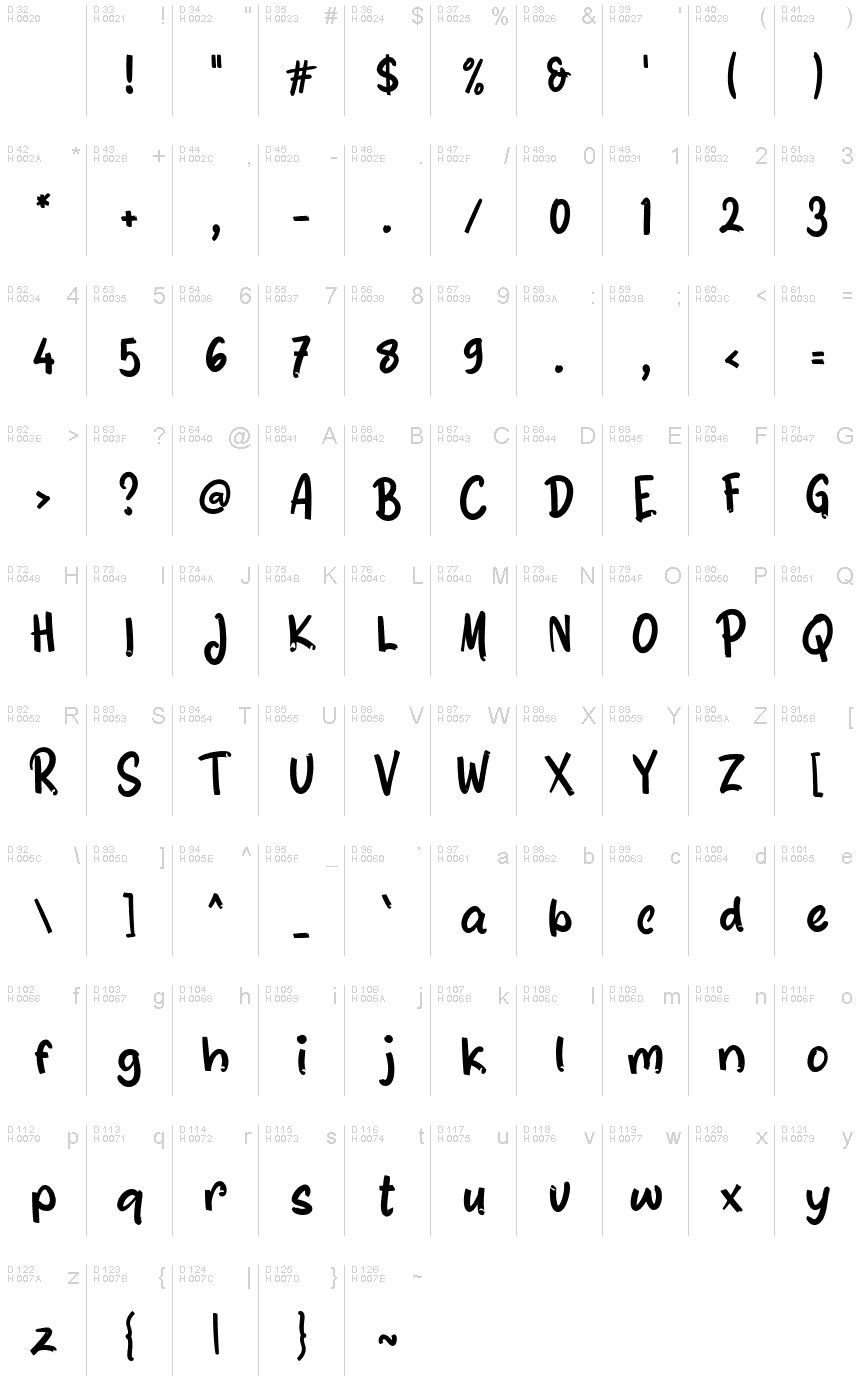
Es Blewah
Es Blewah, created by the talented designer wep, is a captivating and smooth brush font that exudes creativity and elegance. With its fluid strokes and graceful curves, this typeface adds a touch of sophistication to any project. Its versatility makes it suitable for a range of design endeavors.
For branding projects, Es Blewah brings an element of modernity and uniqueness to logos and packaging. When used in advertising campaigns, this font effortlessly catches attention and evokes emotions. Whether it's for website headers or social media graphics, Es Blewah lends an artistic flair that leaves a lasting impression on viewers.